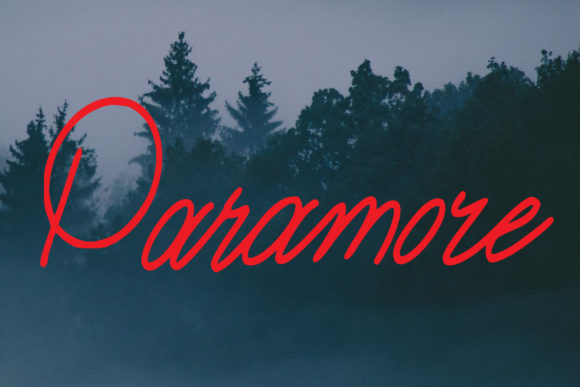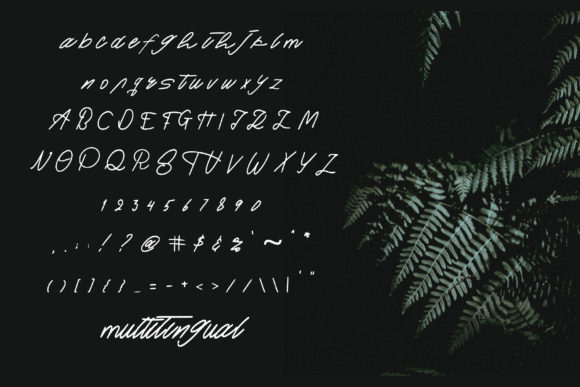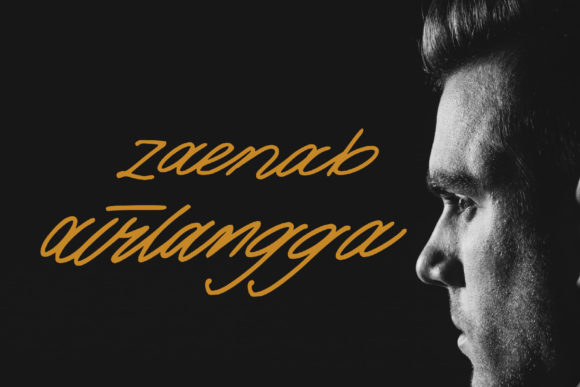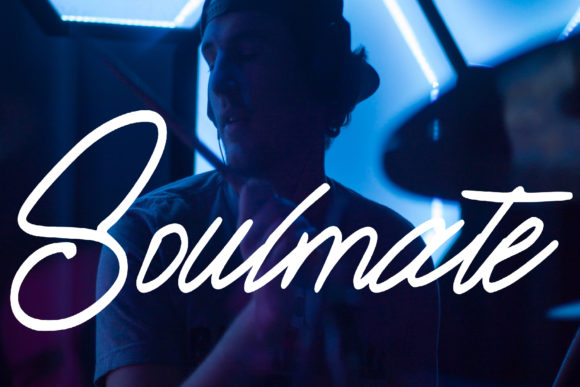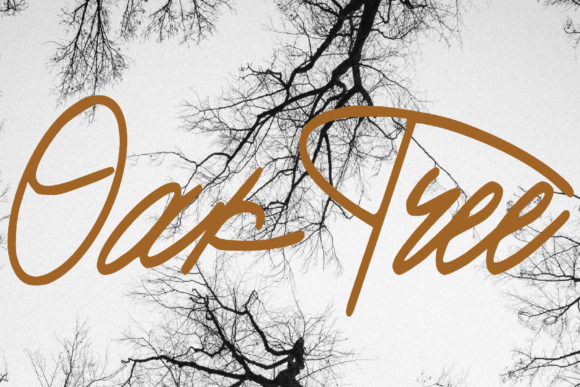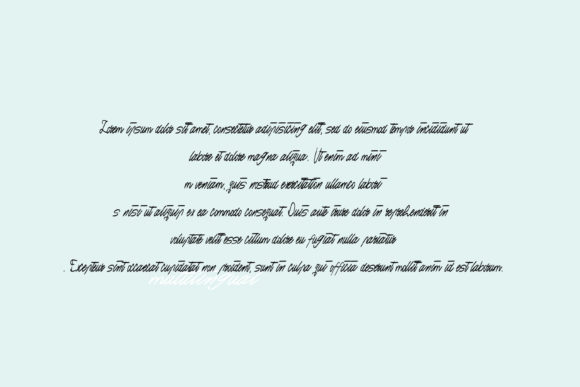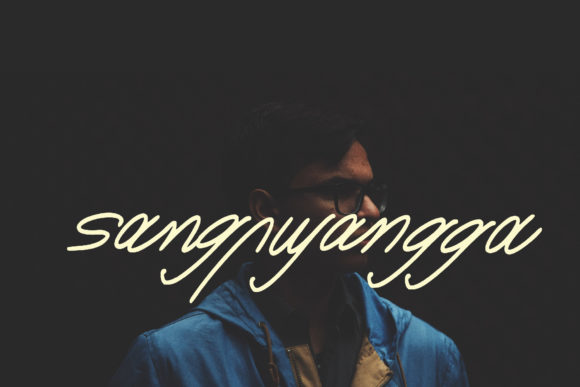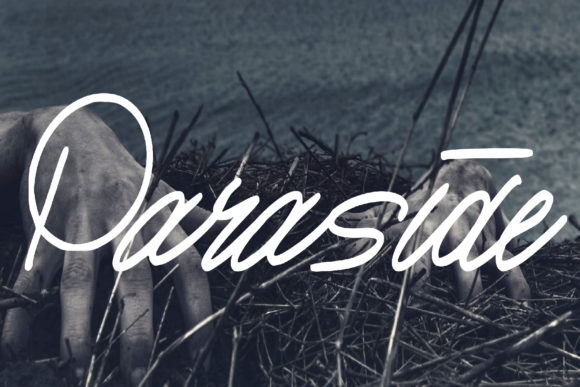
Paramore Font
Paramore is a delightful and friendly handwritten font that exudes charm and warmth. Its natural and unique style adds a touch of personality to a wide range of design projects. Here are some reasons why you’ll love Paramore:
1. Sweet Appeal: Paramore’s sweet and friendly nature makes it a perfect choice for adding a warm and approachable feel to your designs. Its handwritten look creates a personal and inviting atmosphere.
2. Natural Flow: The smooth lines and varying baseline of Paramore give it a natural and flowing appearance. Each character blends seamlessly into the next, creating a harmonious and visually pleasing flow.
3. Versatile Usage: Paramore is an incredibly versatile font that complements various design projects. From greeting cards to quotes, logos, and more, its adaptability makes it suitable for any creative endeavor.
4. Personalized Touch: The unique style of Paramore allows you to add a personalized touch to your designs. It brings a sense of authenticity and individuality to your projects.
5. Endless Creativity: With Paramore, the possibilities are endless. You can explore different layouts and design elements to create captivating visuals that reflect your creativity.
6. Warm and Welcoming: Paramore’s friendly and approachable style creates a warm and welcoming vibe, making it ideal for designs that aim to connect with the audience emotionally.
7. Whimsical Charm: The whimsical charm of Paramore adds a playful and joyful element to your designs. It brings a sense of lightness and happiness to the overall composition.
8. Handwritten Aesthetics: Despite its handwritten nature, Paramore retains a polished and professional appearance. It strikes the perfect balance between casual and refined.
9. Natural Beauty: The natural beauty of Paramore lies in its simplicity. It doesn’t overwhelm the design but rather enhances it with its gentle and graceful strokes.
10. Imaginative Possibilities: The limitless potential of Paramore allows you to let your imagination run wild. It encourages you to experiment and create unique and captivating designs.
Embrace the sweet and friendly charm of Paramore to infuse your designs with warmth and personality. Its versatility and natural aesthetics make it an ideal font for various design projects, allowing you to let your creativity shine. With Paramore, there are no boundaries—only endless opportunities to create heartfelt and captivating designs. Let Paramore be the font that brings a touch of sweetness and authenticity to all your creative ideas!